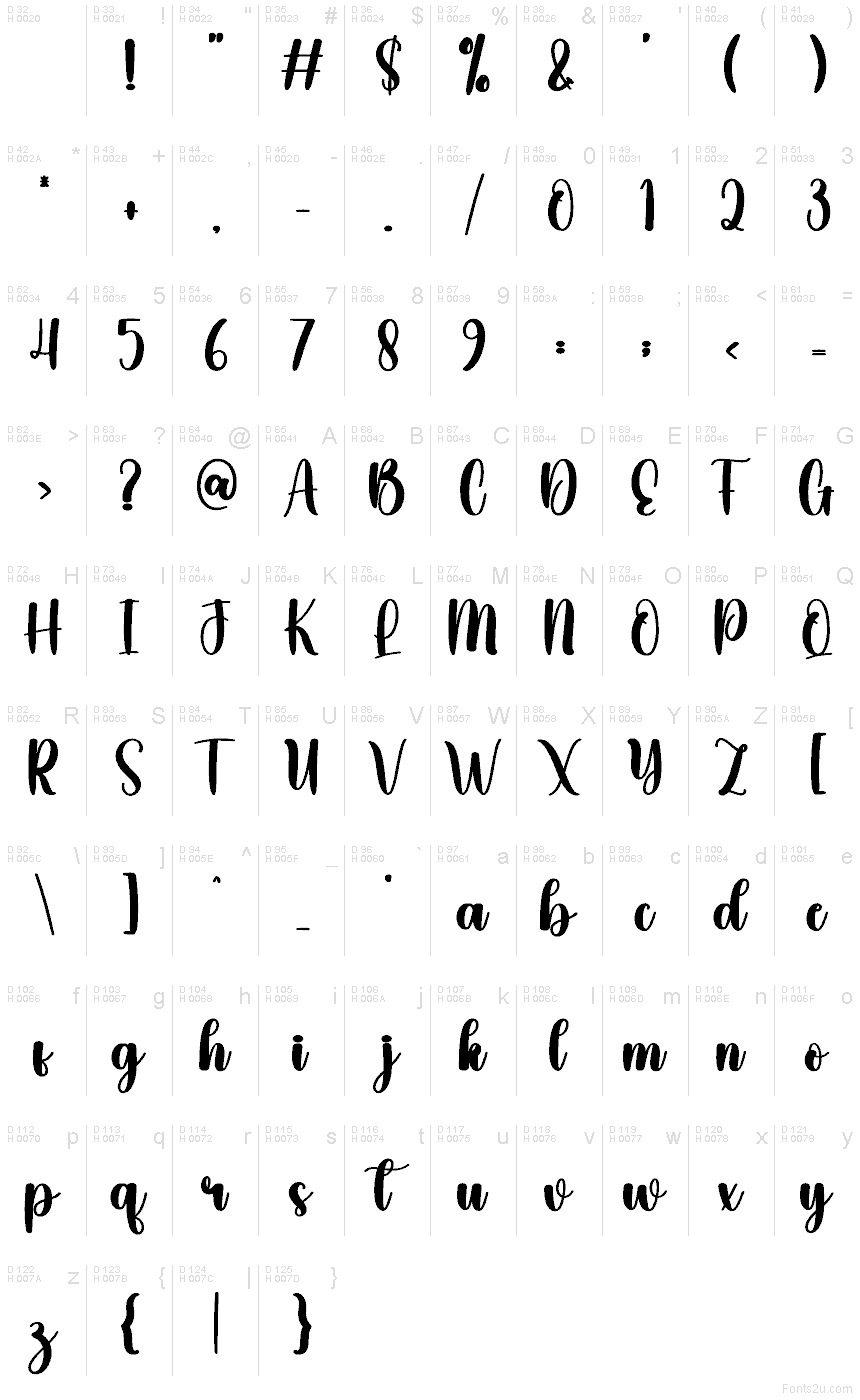
Christmas Rainbow
Christmas Rainbow font by Scratchones is a splendid brush typeface whose elegance and cursive, decorative style are not to be missed. It shows a smooth flow and beautiful ornate detailing with influences from modern calligraphy art. This is definitely a good-looking script font capable of capturing the attention of your target audience.